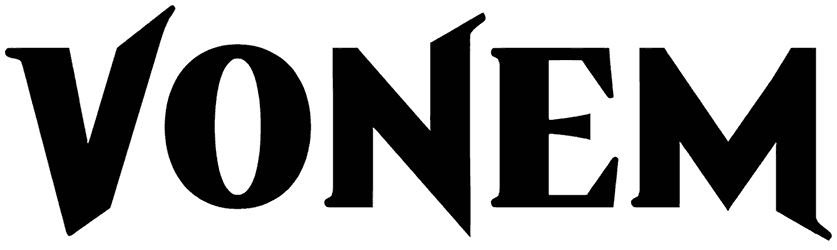
Vonem Font
A classic design with a special style can be an interesting idea for varied projects, and today’s offer is one of them. This unique Halloween font, which is called Vonem, has a bold and striking letter face. There is no offer for lowercase letters, but with two sets of capitals, you can use Vonem font for varied layouts, namely postcards, invitations, apparel, and so forth.